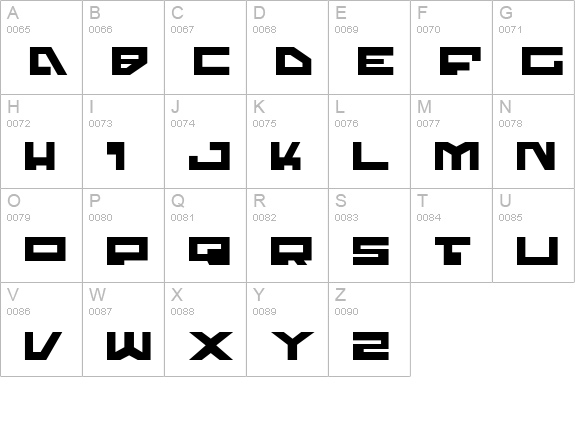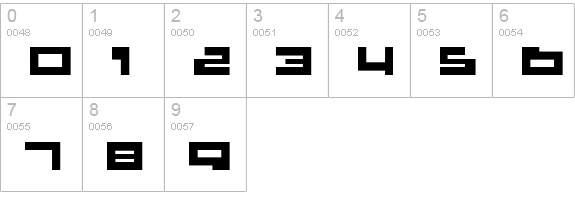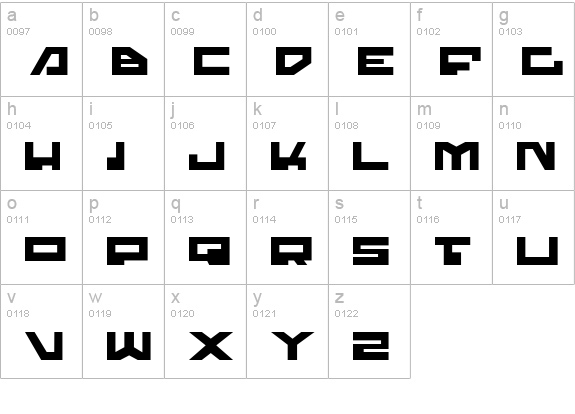
Trajia Expanded is a distinctive, extended-width variant in the Trajia typeface family \xE2\x80\x94 well suited to design and typography projects.
Trajia Expanded font is a modern and stylish typeface that exudes sophistication and elegance. With its sleek lines and contemporary design, Trajia Expanded is perfect for a wide range of design projects, from branding to editorial design. The expanded version of the font offers a unique twist, making it stand out and capture attention. What makes Trajia Expanded even more appealing is that it is available for free download at FontsMarket.com. This means that you can easily access this beautiful font and use it in your projects without any cost. Whether you are a graphic designer, a creative professional, or someone looking to add a touch of class to their designs, Trajia Expanded is the perfect choice. Download it today and elevate your design projects with this stunning typeface.